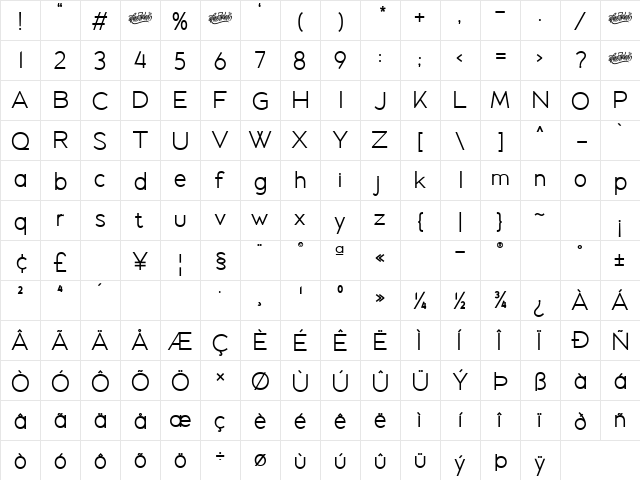
LORENZA Regular
| Designer | Almarkhatype Studio 2020 - Abdul Malik |
Design Context for LORENZA Typeface
LORENZA takes a measured approach to typography — its balanced proportions and neutral character make it a reliable workhorse for both digital and print work.